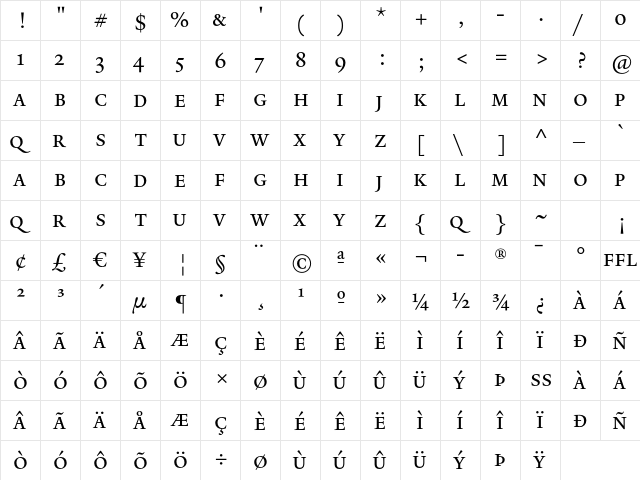
Male WebSmallCaps
| Foundry | Carter & Cone Type Inc |
Design Context for Male Typeface
Male takes a measured approach to typography — its balanced proportions and neutral character make it a reliable workhorse for both digital and print work.